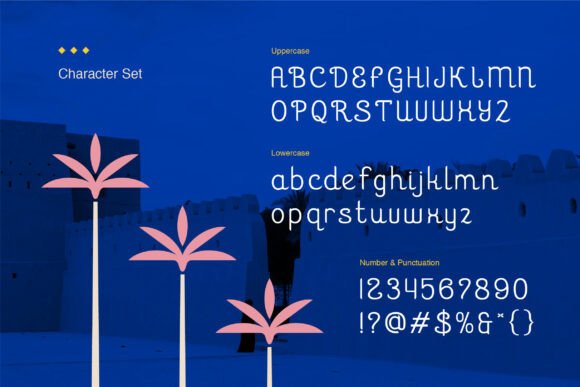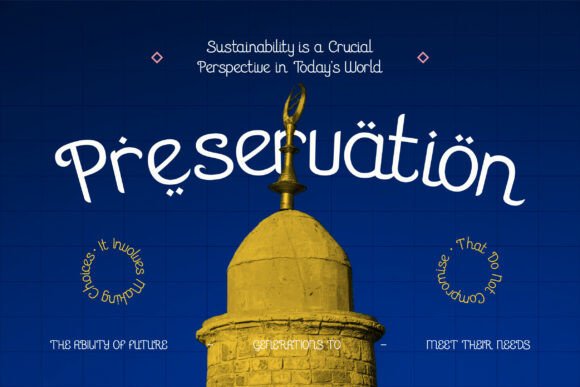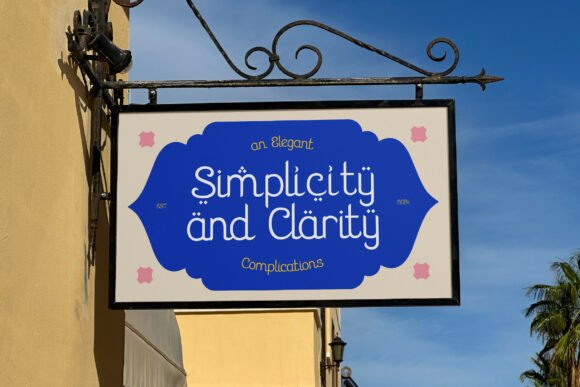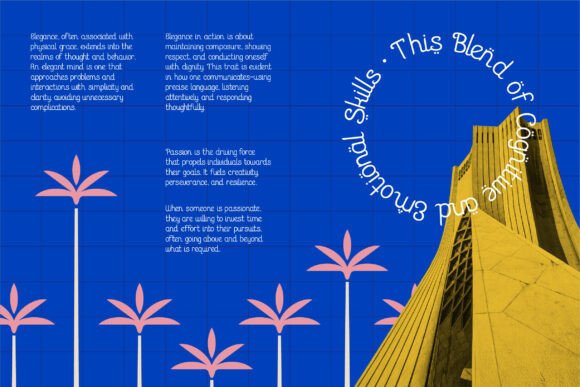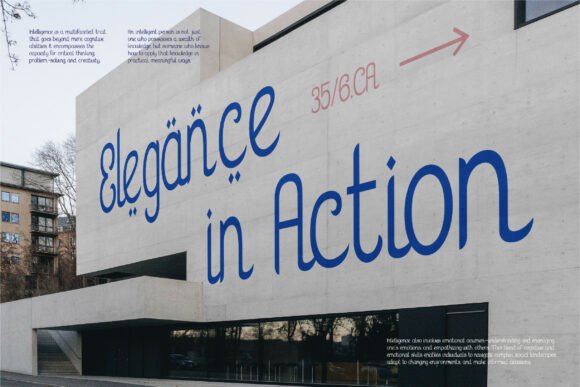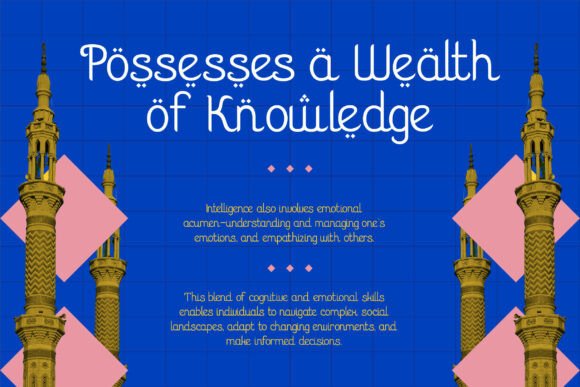
Introduction to Samaria Font
Sämäriä: Creative Arabic-Fusion Typeface Bridge the gap between heritage and modern minimalism with Sämäriä, a creative typeface.
This font reimagines Latin characters through the rhythmic lens of Arabic calligraphy, featuring monolinear stems and playful, geometric flourishes The integration of diacritic-style “dots” and soft, circular terminals provides a visual vibration that is both ancient and refreshingly contemporary.